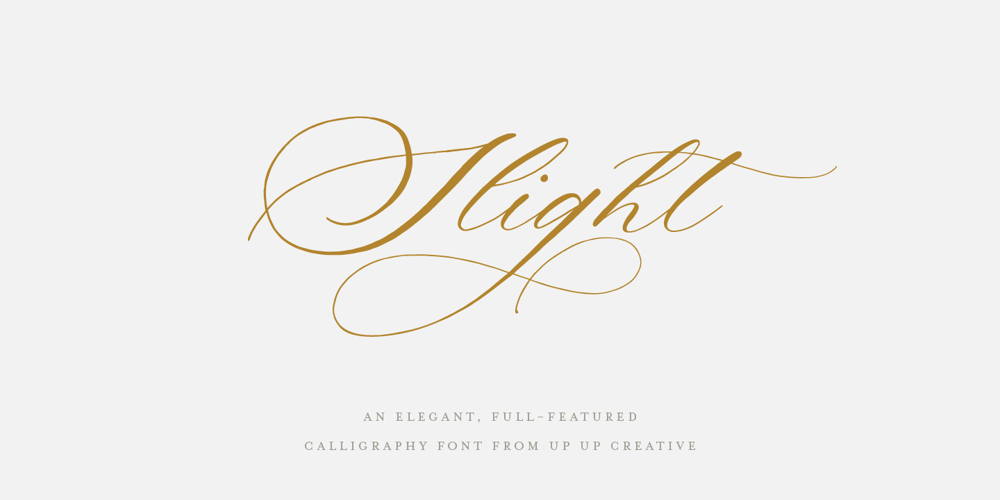
Slight Font Family was designed by Julie Green and published by Up Up Creative. Slight contains 1 styles and family package options. Introducing Slight, an elegant, full-featured script font with tons of alternate characters and OpenType features. Hand-lettered with a heavy right slant, Slight is particularly well-suited for invitations, branding, and editorial design. Slight comes with more than 1000 glyphs! Specific OpenType features include contextual alternates, stylistic alternates, initial and final forms, multiple alternate glyphs for many letters (accessed through the glyphs panel), multilingual support (including multiple currency symbols), ligatures, standard numbers, and six ampersand styles. Perhaps the most fun thing about Slight is that it includes multiple versions of all ascending and descending letters, making it lots of fun to play with in your layouts and compositions. The OpenType features can be very easily accessed by using OpenType-savvy programs such as Adobe Illustrator and Adobe InDesign. (To access these awesome features in Microsoft Word, you’ll need to get comfortable with the advanced tab of Word’s font menu. If you need help with this, ask me!) Files included: Slight-Regular.otf Mail support : julie@upupcreative.com — Find inspiration (and sneak peeks at my next font-in-progress) on – Instagram: http://instagram.com/julieatupupcreative – Facebook : https://www.facebook.com/upupcreative – Pinterest: https://www.pinterest.com/upupcreative – My website: http://upupcreative.com — PLEASE ENJOY! I can’t wait to see what you make with Slight! Feel free to use the #upupcreative and #slightscriptfont tags to show me what you’ve been up to!